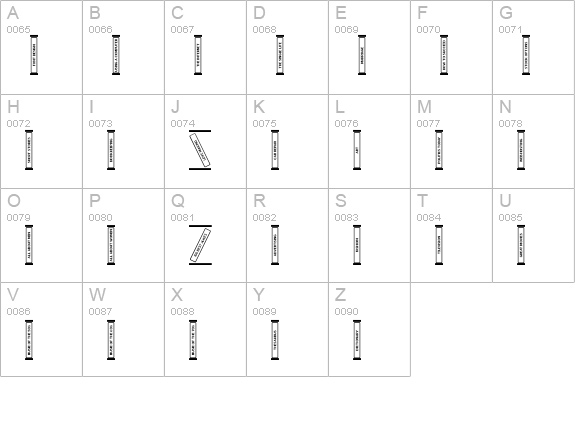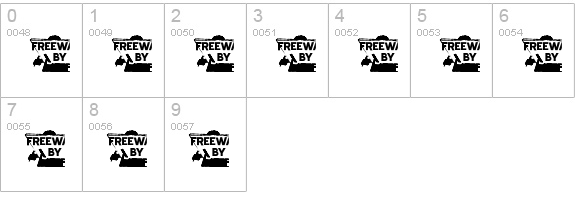
Bookshelf Titles JL font is a stylish and elegant typeface designed for creating eye-catching book titles and headers. With its unique blend of classic and modern elements, this font is perfect for adding a touch of sophistication to your design projects. The sleek lines and decorative flourishes of Bookshelf Titles JL font make it stand out on the page, drawing attention to your text in a subtle yet striking way. What's even better is that Bookshelf Titles JL font is available for free download at FontsMarket.com! This means you can easily add this beautiful font to your collection without any cost. Whether you're working on a book cover, poster, or any other design project, Bookshelf Titles JL font is sure to elevate your work with its timeless charm and versatility. Download it today and see how it can enhance your designs effortlessly.